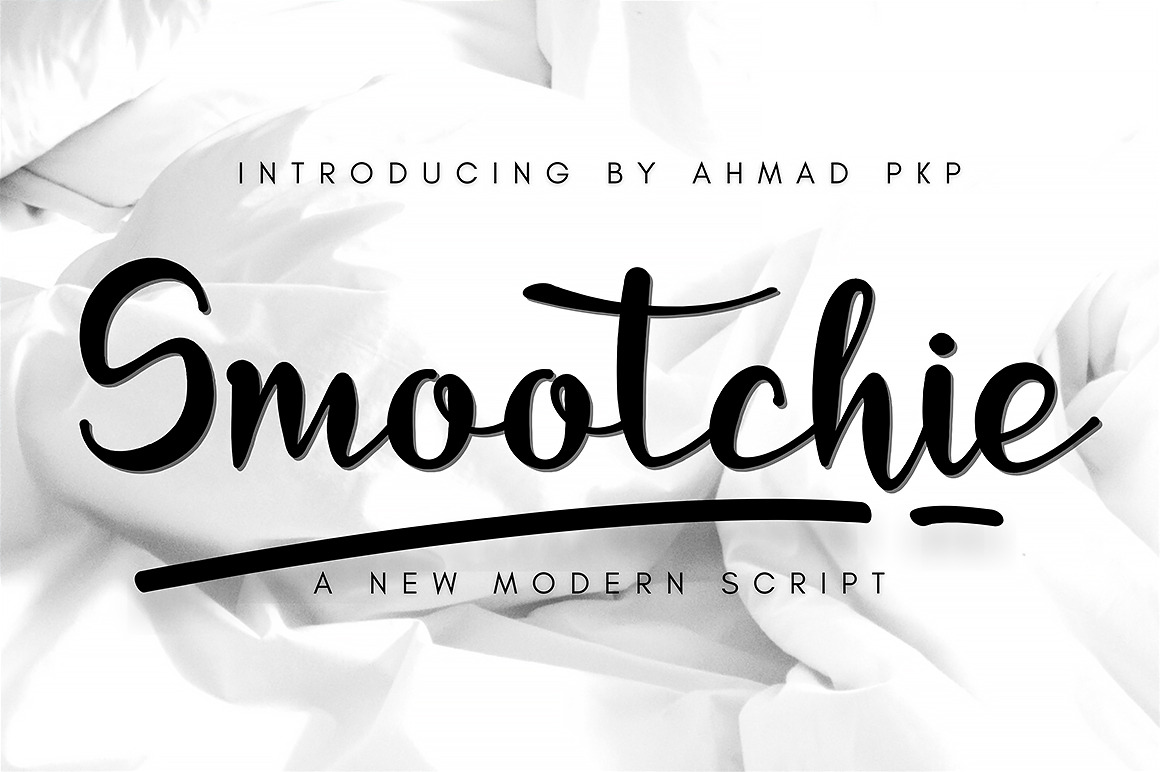
Smootchie Font Modern Script
Smootchie is a fancy handwritten script font. With signature light contrast strokes, the characters are fun with a bit of binder and substitute. To give you extra creative work. This Smootchie Font is great for logo designs, social media, Movie Titles, Book Titles, short text even long text letters and is great for your secondary text fonts with sans or serif. Create stunning masterpieces with the Smootchie Font.